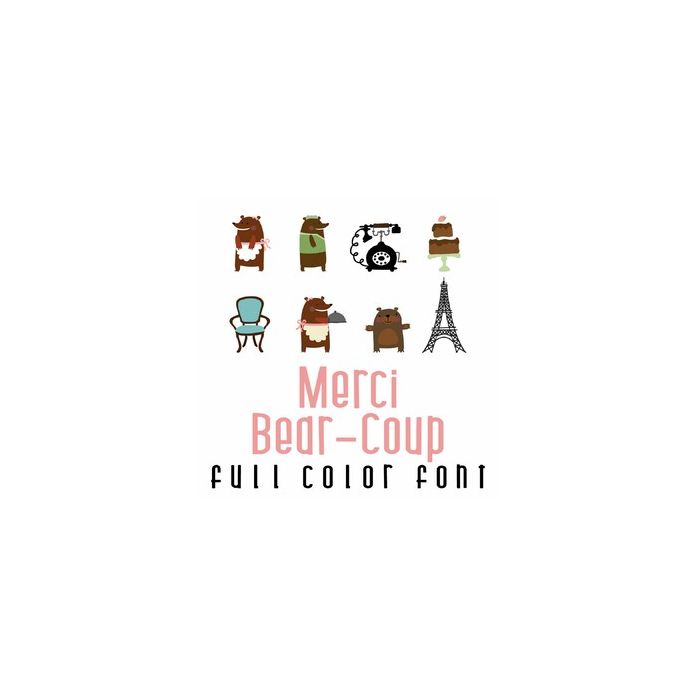
This adorable full-color doodlebat font features 26 adorable french style bears and pastries. Perfect for cards, crafts, gifts, decor, scrapbook pages, planner stickers, and more!